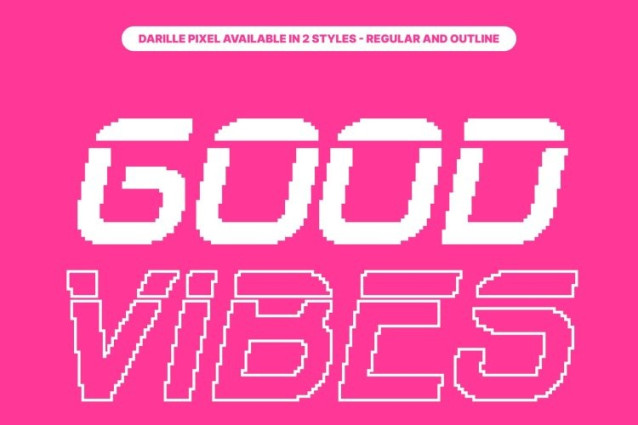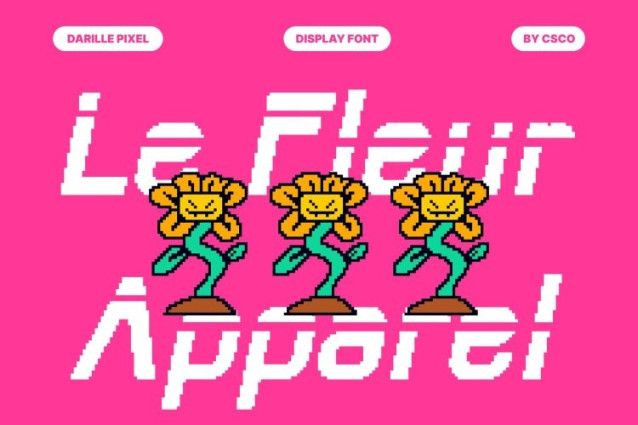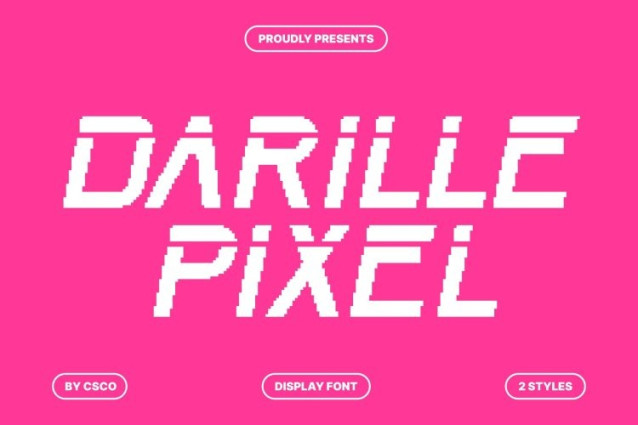
Darille Pixel Font This is a modern sans serif font that blends futuristic design with a distinctive pixel character. Its clean structure and digital detailing create a forward-thinking appearance inspired by technology, innovation, and next-generation visual language.
Modern Form, Futuristic Expression
Featuring sleek lines and contemporary proportions, this font delivers clarity with a strong futuristic edge. The pixel influence enhances its digital identity, giving the font a dynamic and innovative feel while maintaining balance and readability.
Built for Future-Focused Designs
This font is ideal for technology branding, futuristic logos, digital interfaces, websites, and sci-fi–inspired visuals. Its modern style and pixel-driven aesthetic make it perfect for projects that demand cutting-edge impact and progressive design.
Versatile, Clean, and Innovative
Despite its bold futuristic personality, this font remains versatile and easy to use across various sizes and layouts. From headlines and banners to refined digital typography, this font adds a confident, modern, and innovative presence to any design project.